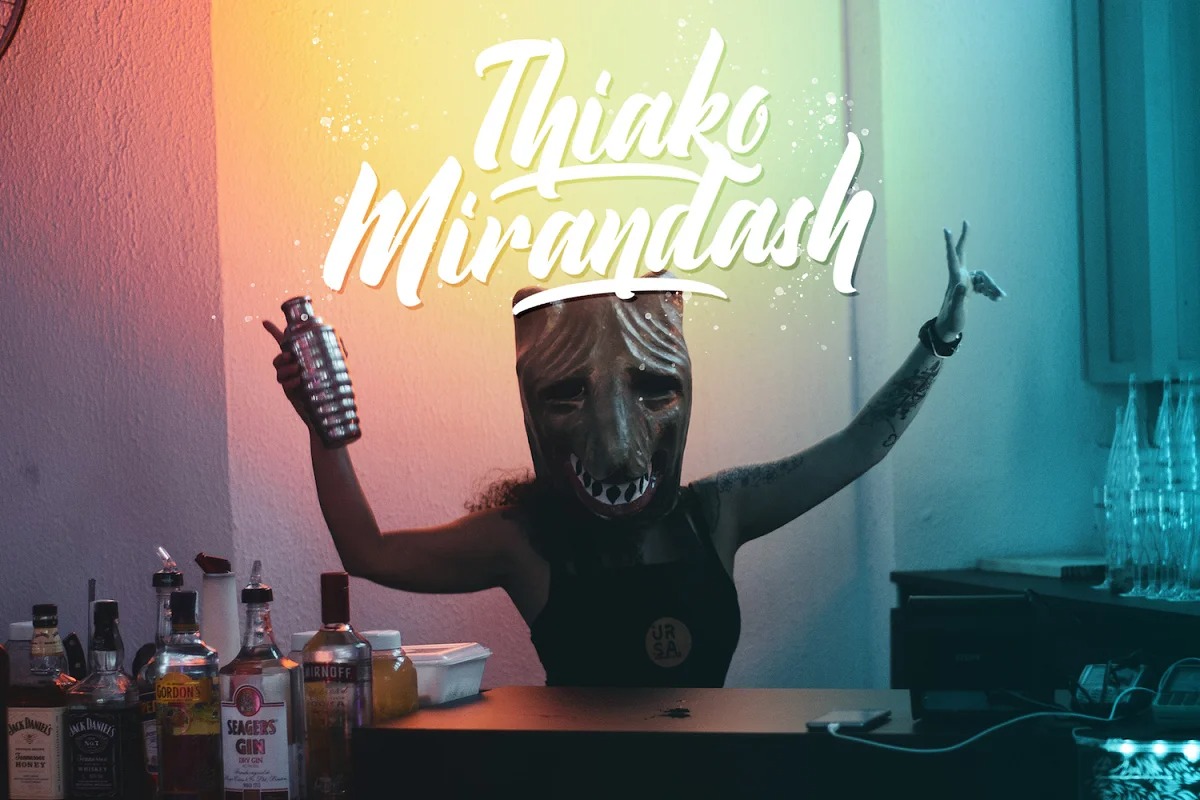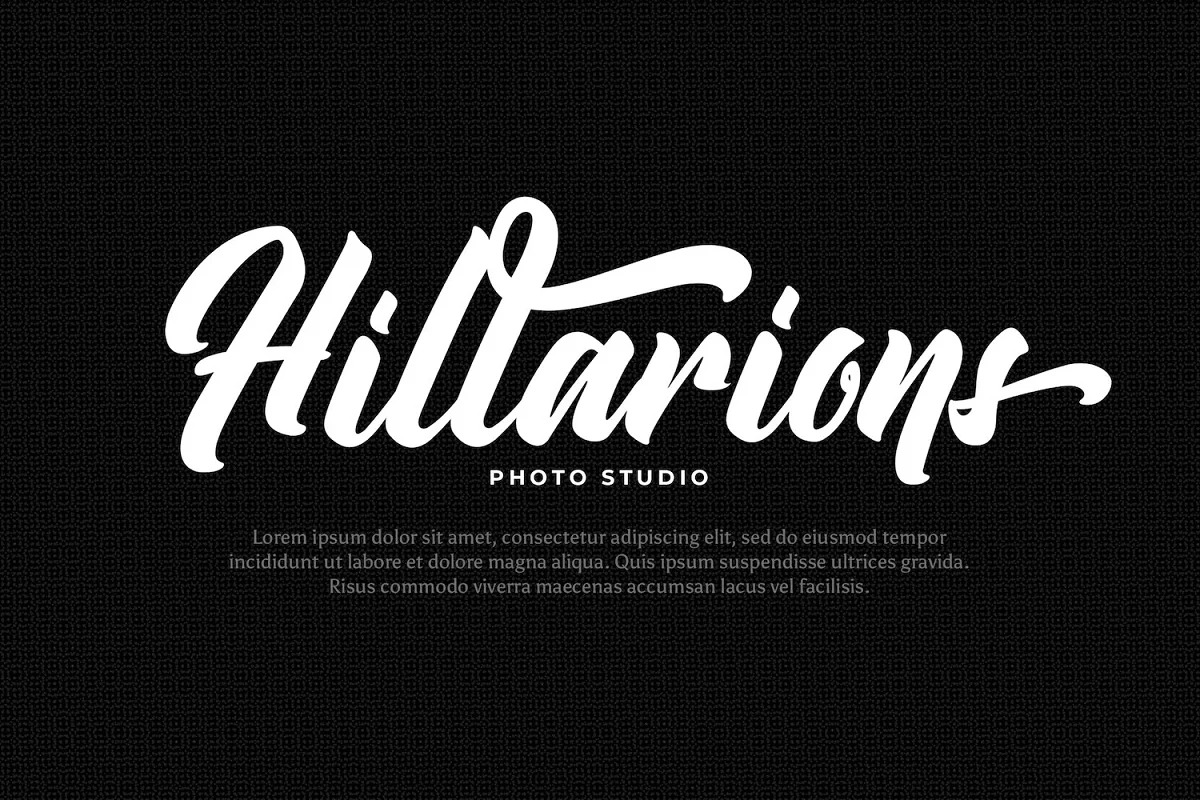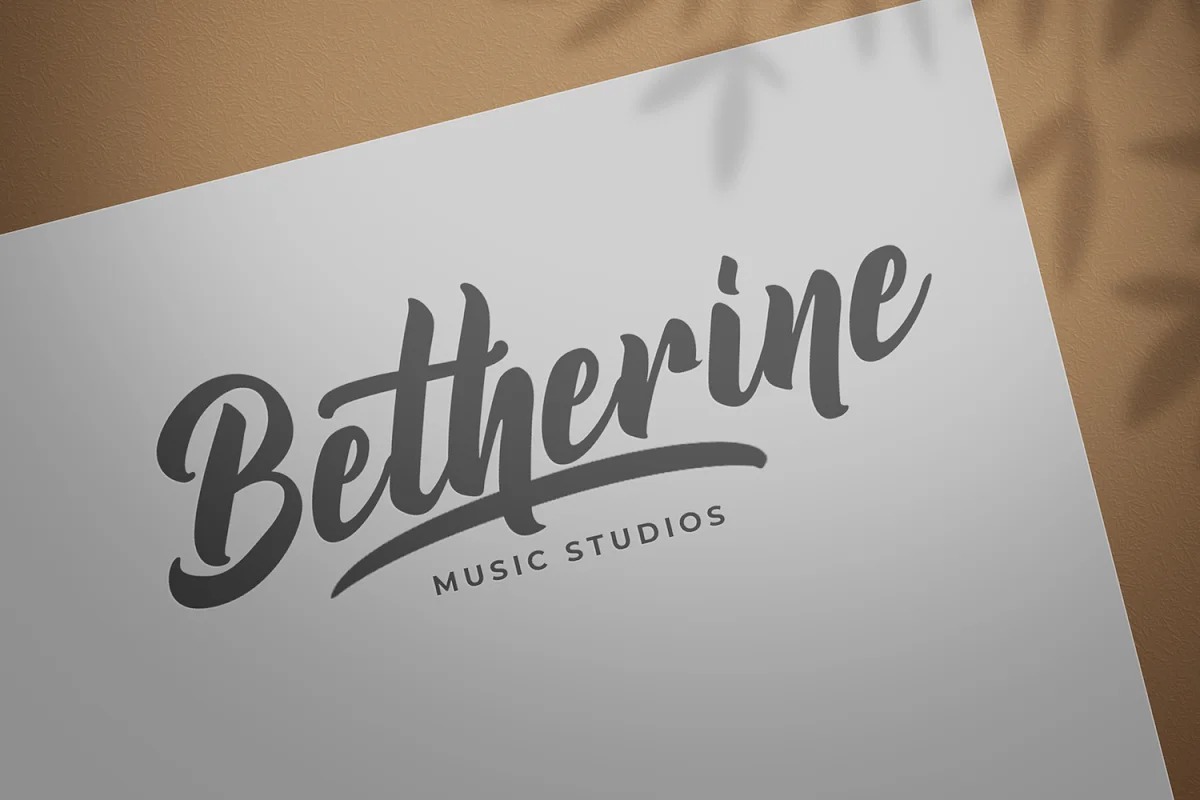
Bethany Kibang Font
Bethany Kibang Script Font
This font has inspirated from retro style and funky designs like signs and old poster. This font comes with an extra extrude to make the font look more retro/unique and save your time on making it. It is curved, rounded, and has an unique vintage style, that is perfect for branding. Add it to your most creative ideas and notice how it makes them come alive!